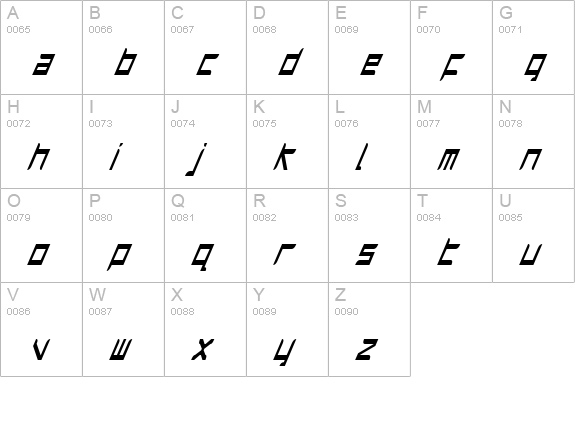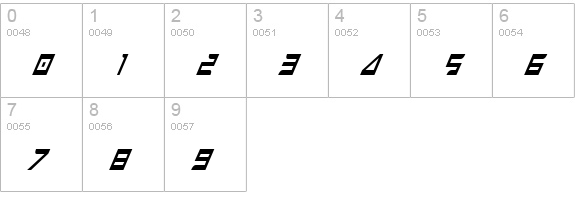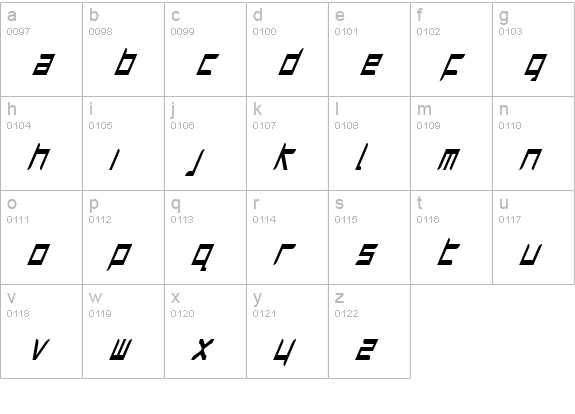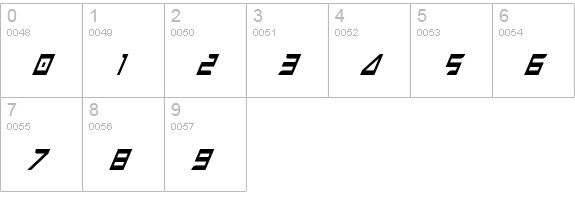
Harrier Condensed Italic is a distinctive, condensed-width, italic variant in the Harrier typeface family \xE2\x80\x94 well suited to design and typography projects.
The Harrier Condensed Italic font is a beautifully crafted typeface that exudes elegance and sophistication. Its sleek and slender design adds a touch of sophistication to any design project, making it perfect for headlines, logos, and branding materials. The Condensed Italic variant of the Harrier font family has been meticulously designed to provide a unique and stylish look. The slanted and slightly condensed letterforms create a sense of dynamism and movement, adding a modern and contemporary feel to any design. One of the standout features of the Harrier Condensed Italic font is its versatility. It effortlessly adapts to various design styles, whether it be for a minimalist and clean aesthetic or a bold and edgy look. This font is a true chameleon, capable of enhancing any design concept. In addition to its stunning visual appeal, the Harrier Condensed Italic font is also extremely legible. Each letter is carefully designed to ensure optimal readability, even at small sizes. This makes it an excellent choice for both print and digital media, ensuring that your message is effectively communicated to your audience. What's more, the Harrier Condensed Italic font is available for free download at FontsMarket.com. This means that you can enjoy the beauty and functionality of this font without any cost. It's a fantastic opportunity for designers, artists, and creatives to enhance their projects with a high-quality font that won't break the bank. Whether you're working on a professional project or a personal endeavor, the Harrier Condensed Italic font is a must-have addition to your font library. Its exceptional design, versatility, and accessibility make it a valuable asset for any design project. Download this font for free at FontsMarket.com and elevate your designs to new heights.